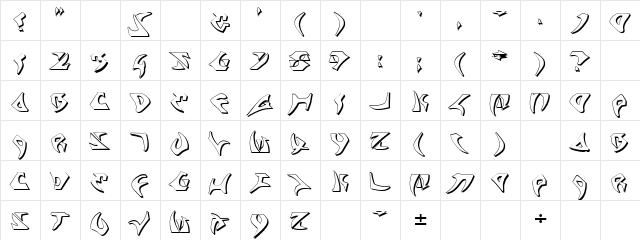
Kahless Shadow Shadow
Design Context for Kahless Shadow Typeface
Kahless Shadow is built around its visual character rather than neutral utility — its distinctive forms are designed to make an impression at display sizes.
Font Pairing: Pair with a clean neutral sans-serif for body copy to let Kahless Shadow's character lead without overwhelming the composition.
Pro Tip: Use Kahless Shadow exclusively at display sizes — it was designed to be seen, not read at length. Let a neutral companion handle body copy.